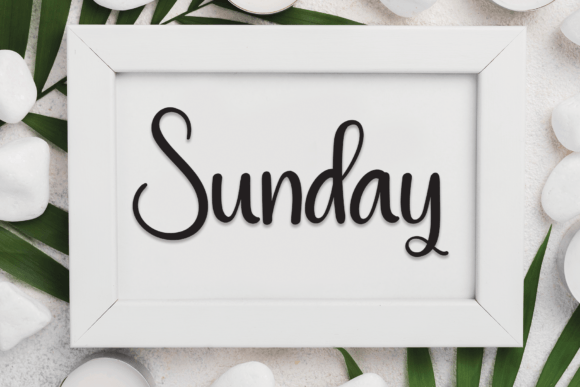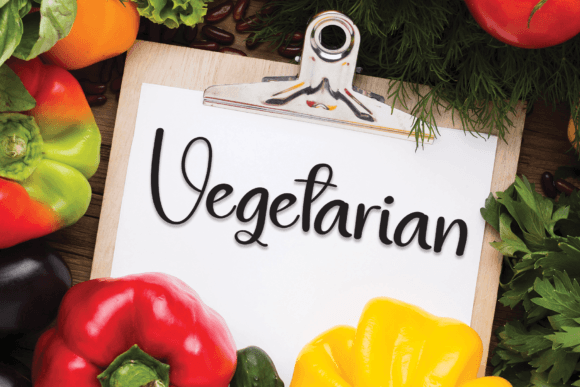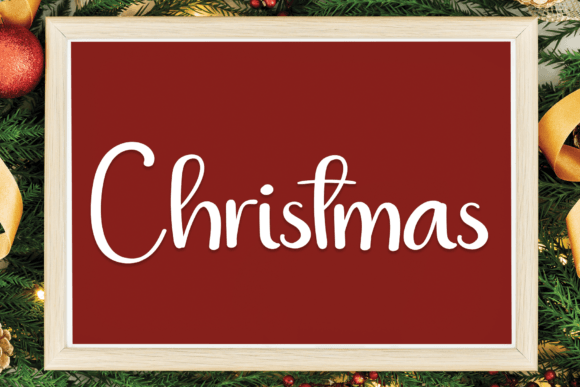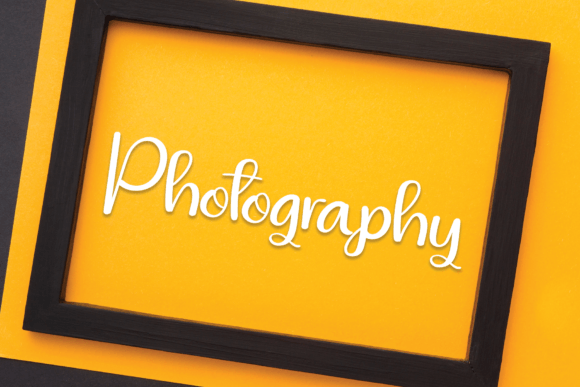
Pastel Cake Font
Bring a simple and friendly touch to your creative projects with the Pastel Cake font. This handwritten script is designed to be versatile and easy to use. Whether you’re creating crafts, digital designs, presentations, or greeting cards, this font is an excellent choice.
The Pastel Cake font offers a clean and approachable style. Its natural strokes and balanced characters make it highly readable. It fits perfectly in both casual and formal projects, adding a warm, personal feel to your work.
Each letter in the Pastel Cake font is crafted to balance simplicity and charm. This ensures your designs look attractive and remain legible. It works well for titles, quotes, invitations, and decorative text.
Despite its simple design, the Pastel Cakefont remains clear and readable at various sizes. Whether used for bold headlines or subtle details, it adds friendliness and clarity to your creations.
Using this font will help your projects stand out with a memorable and inviting style. If you want your designs to be clear, charming, and versatile, the Pastel Cakefont is a great option.
In summary, the Pastel Cakefont fits many creative applications. From crafts and presentations to greeting cards and digital designs, it brings warmth and friendliness. Download it today and create lovely, adaptable designs with this handwritten script.